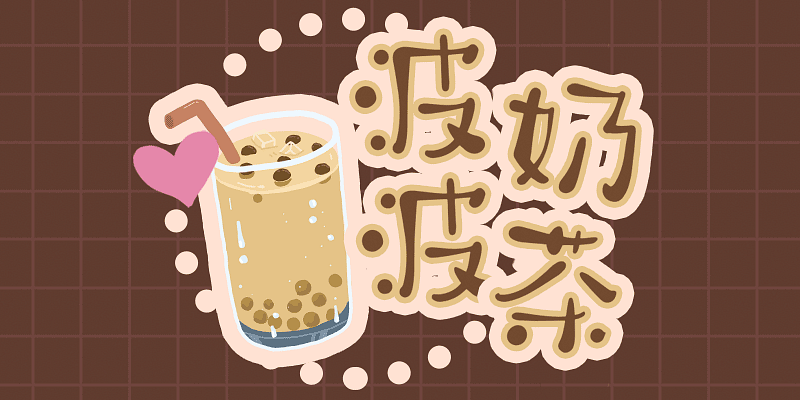
HelloFont ID Bo Bo Ti Font Free Download is a playful, rounded sans-serif typeface that combines modern simplicity with a touch of whimsy. Its friendly and approachable design makes it ideal for projects that need a fun, casual feel, including branding, social media graphics, logos, packaging, and children's content.
HelloFont ID Bo Bo Ti Font is versatile, working well for both display text and smaller text, ensuring clarity and visual appeal. It integrates seamlessly with popular design software like Adobe Illustrator, Photoshop, Figma, and Canva, making it perfect for both digital and print applications.